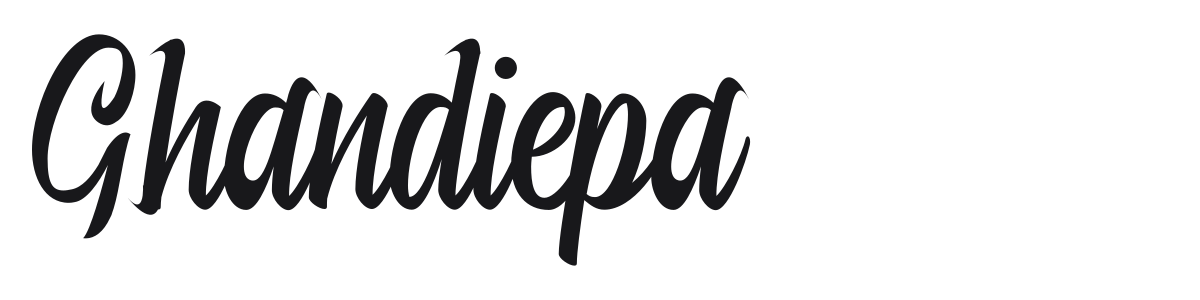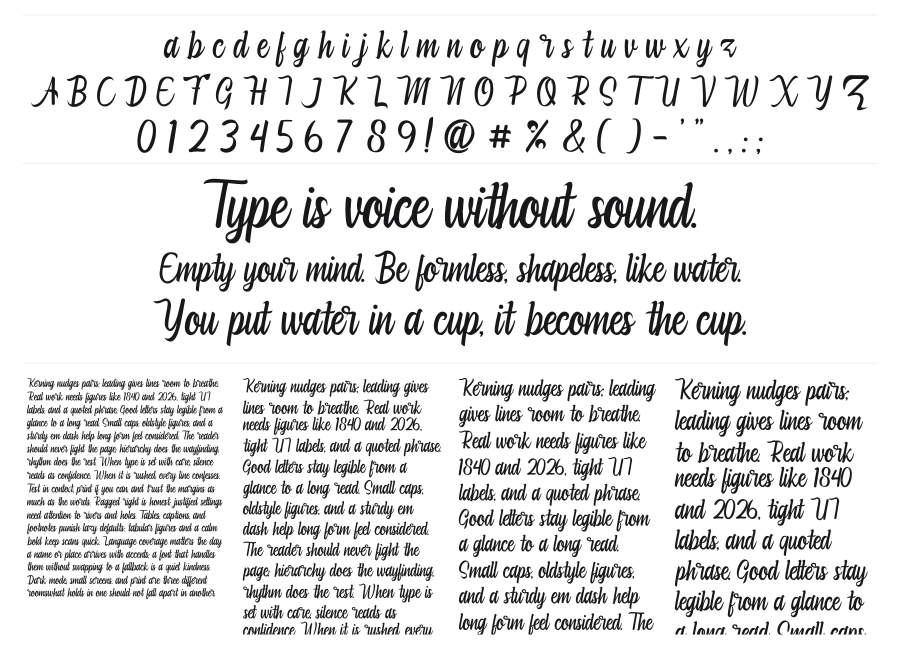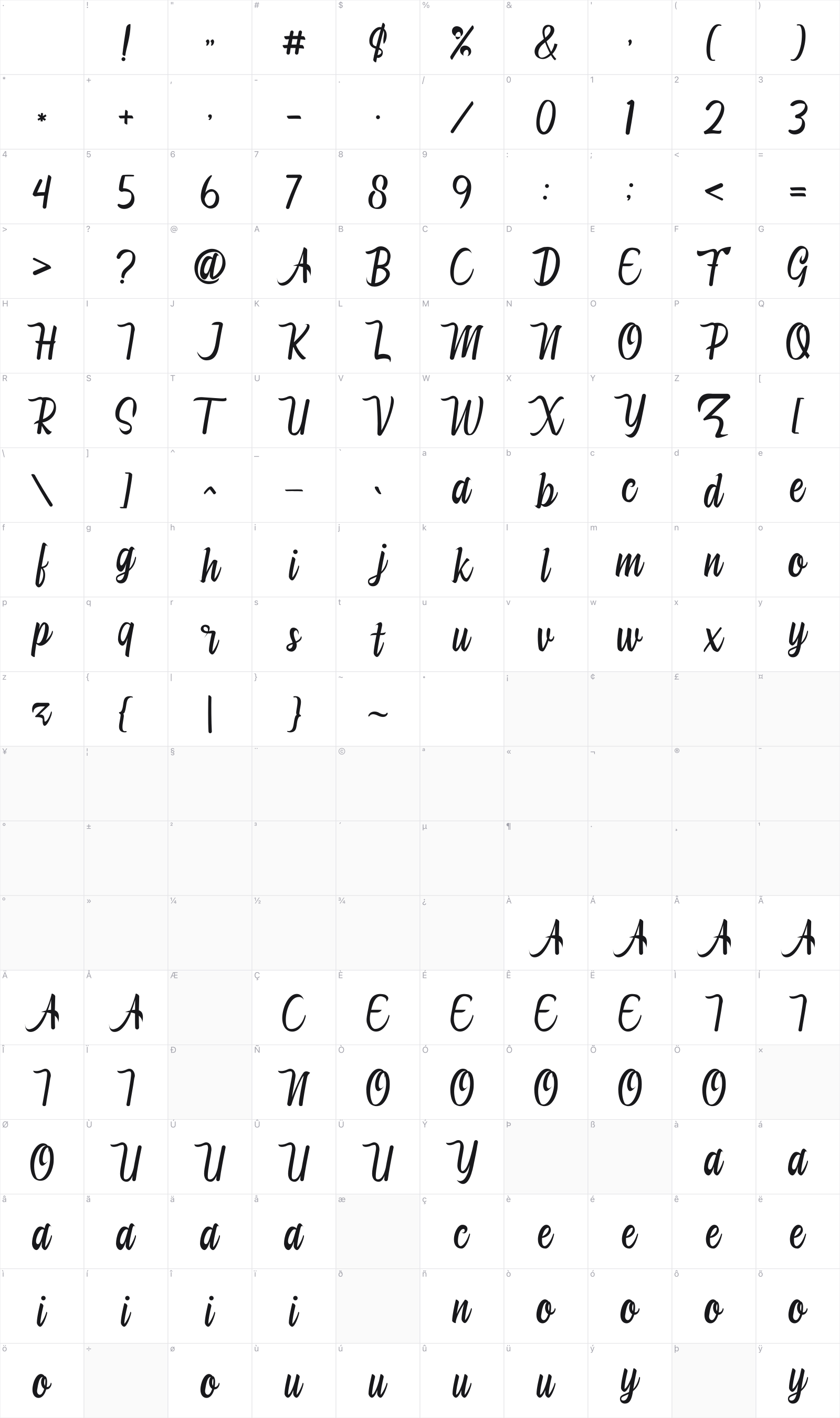
Ghandiepa
Ghandiepa is a bold brush script with strong ink contrast and a lively connected flow that reads like confident hand-lettering. Thick downstrokes taper into fine hairlines, giving each word a dynamic, sweeping rhythm. It carries the casual authority of mid-century sign painting without feeling stiff.